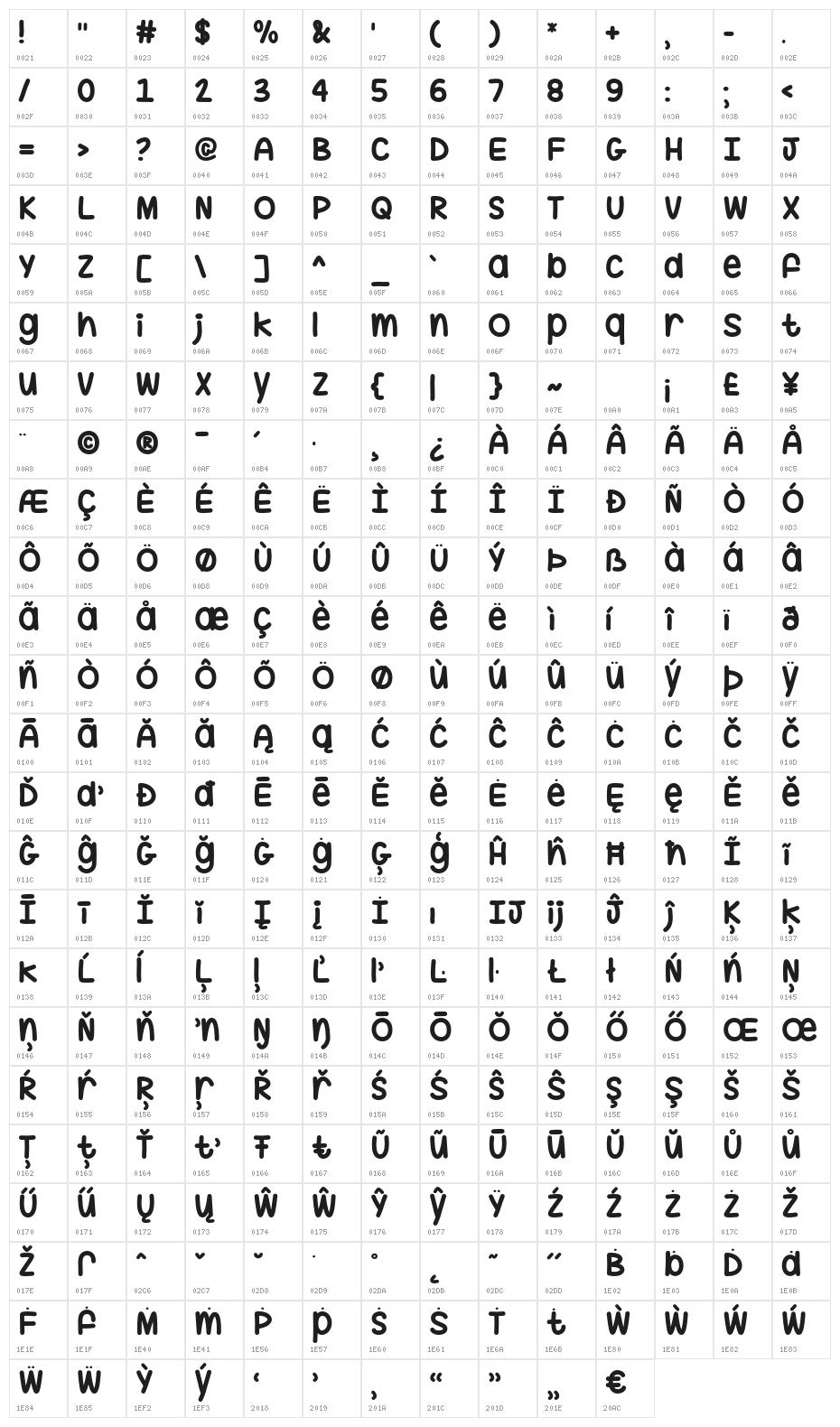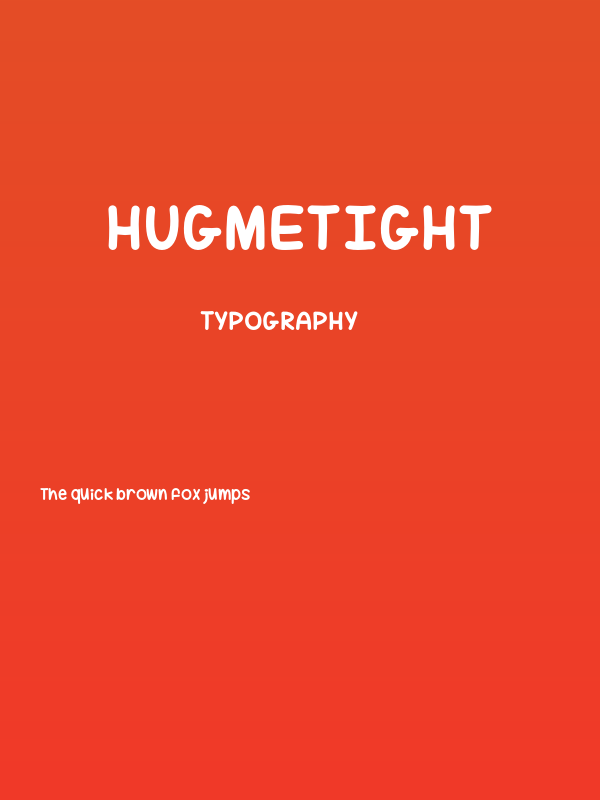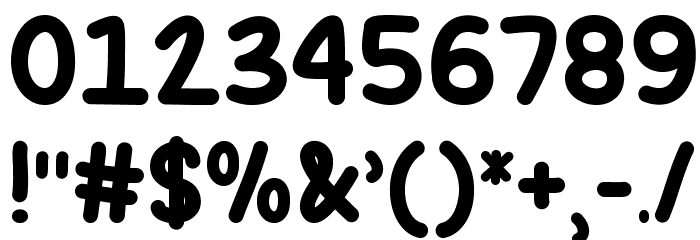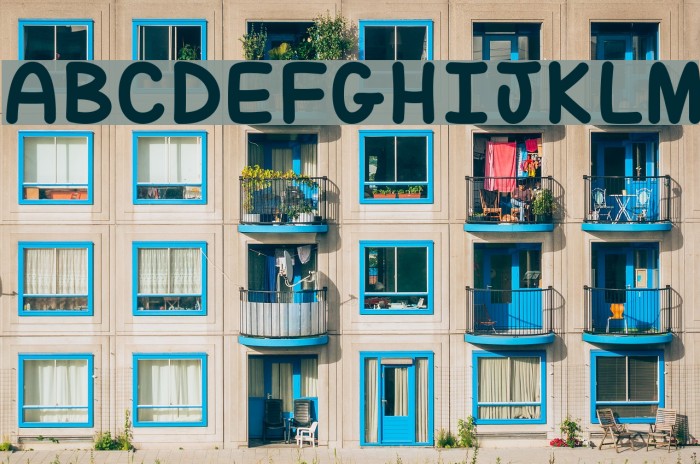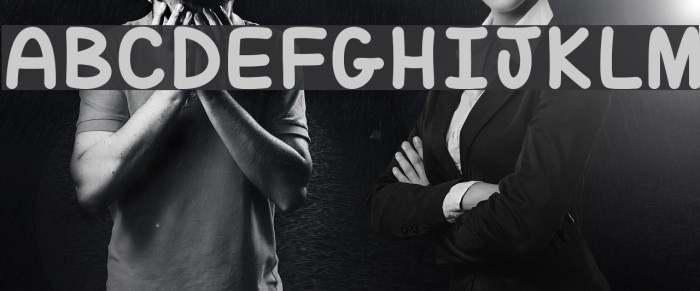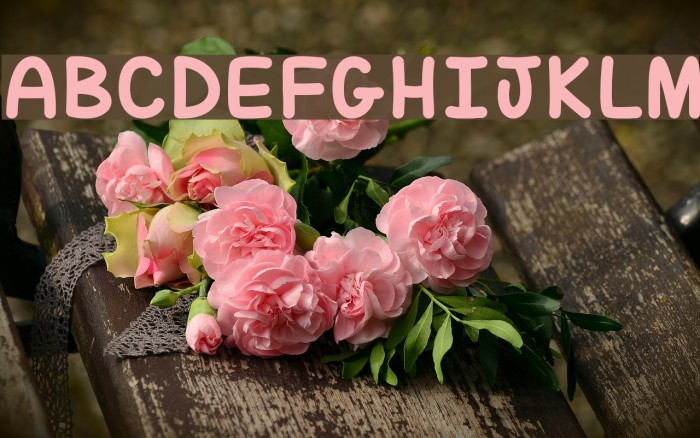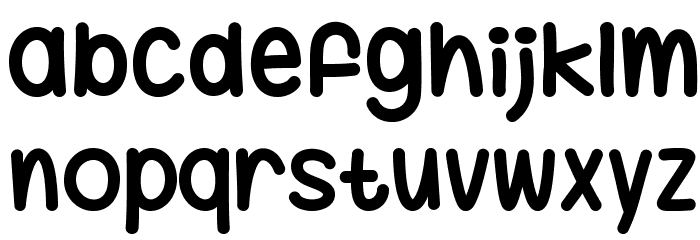
HugMeTight Font
HugMeTight Description
This playful and rounded font exudes a friendly and approachable vibe. Each character is crafted with smooth curves and a consistent stroke width, giving it a uniform appearance. The letters are slightly bold, enhancing readability while maintaining a whimsical charm. The font's informal style makes it ideal for projects that require a touch of fun and creativity. Its rounded edges and consistent line thickness contribute to a cohesive look, making it suitable for both digital and print media. The font includes a full set of uppercase and lowercase letters, numbers, and a variety of special characters, ensuring versatility in its application.
| Use Case | Headlines, Logos, Social media graphics |
| Proposed Projects | Ideal for children's books, playful branding, casual invitations, and social media graphics. |